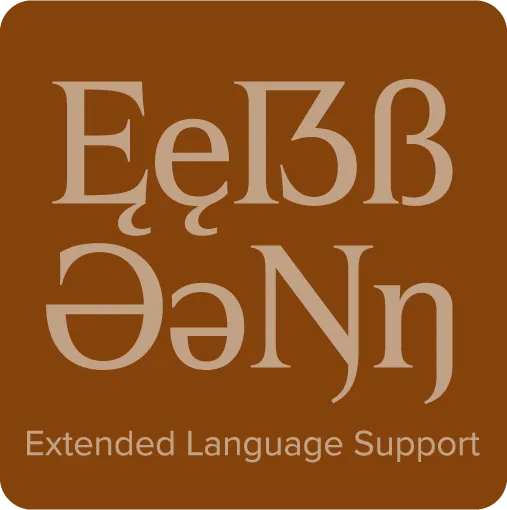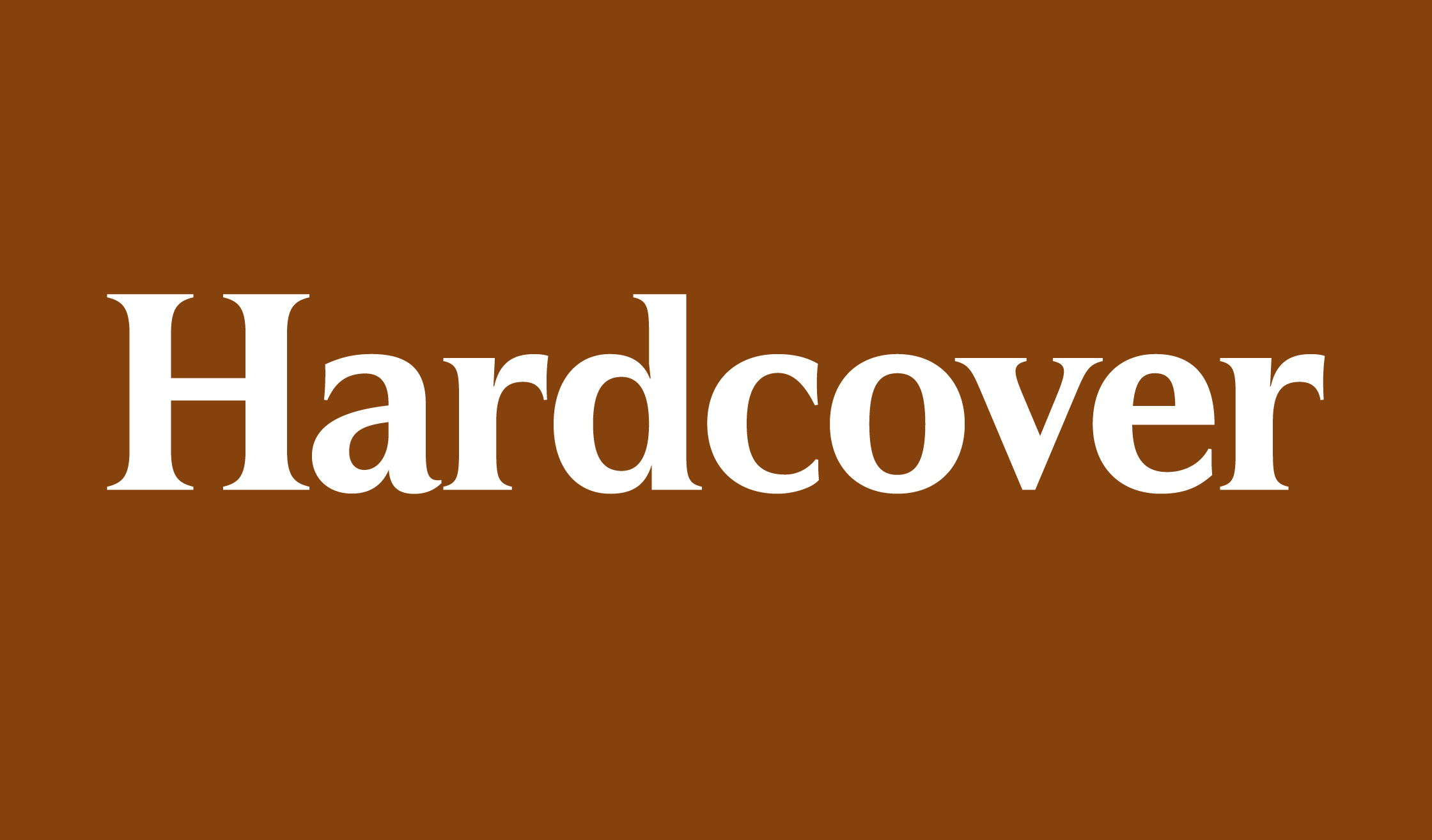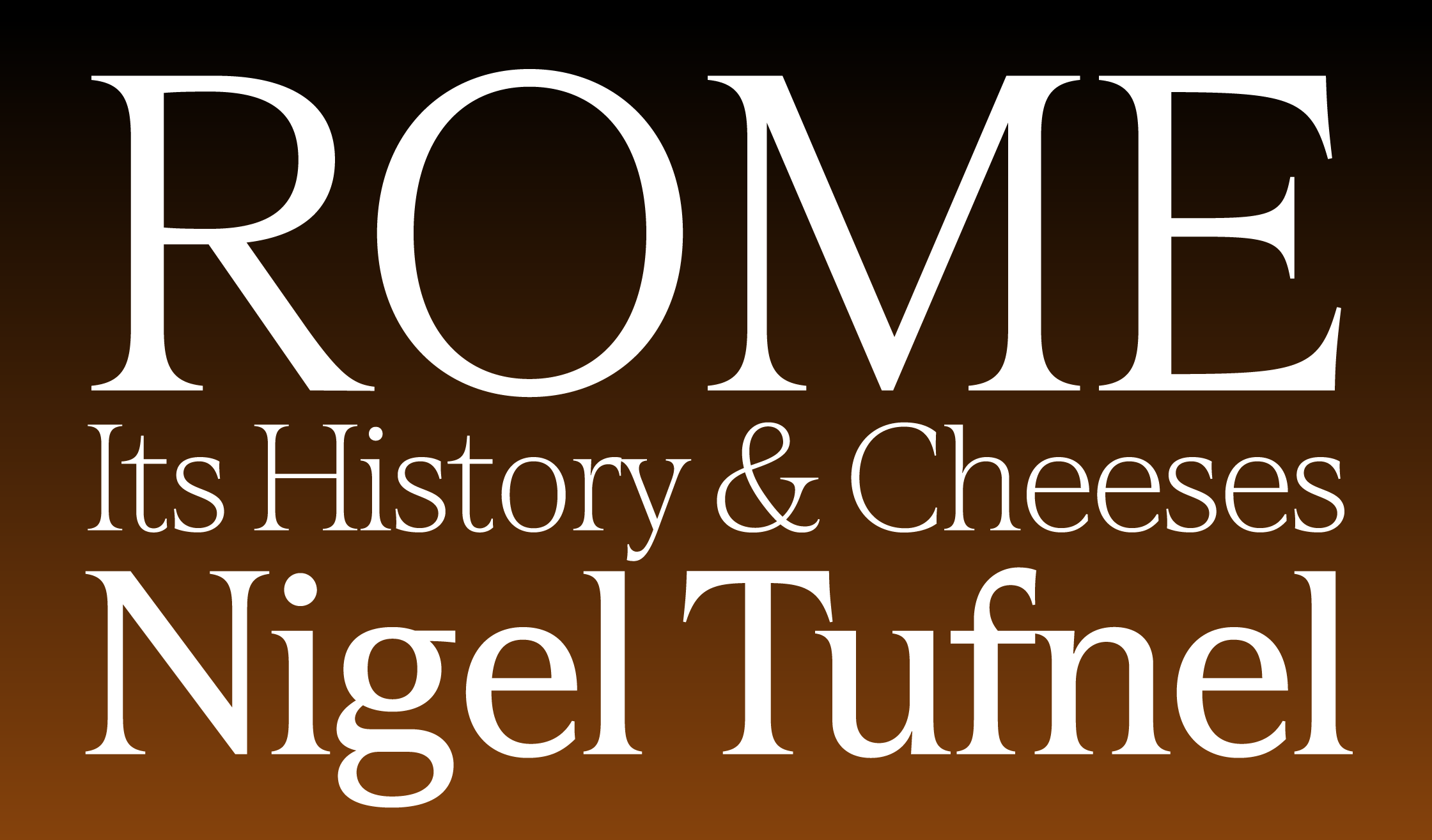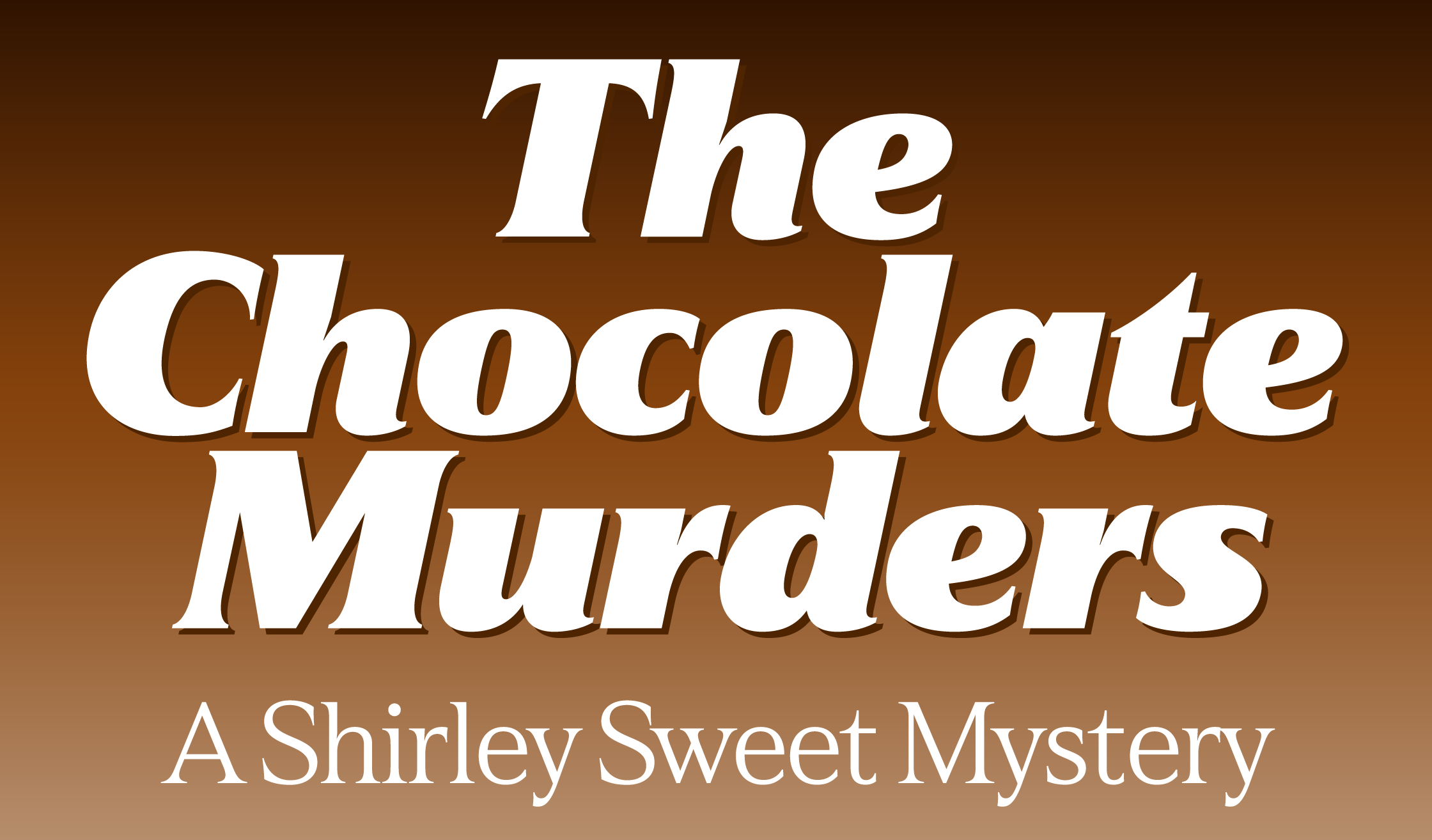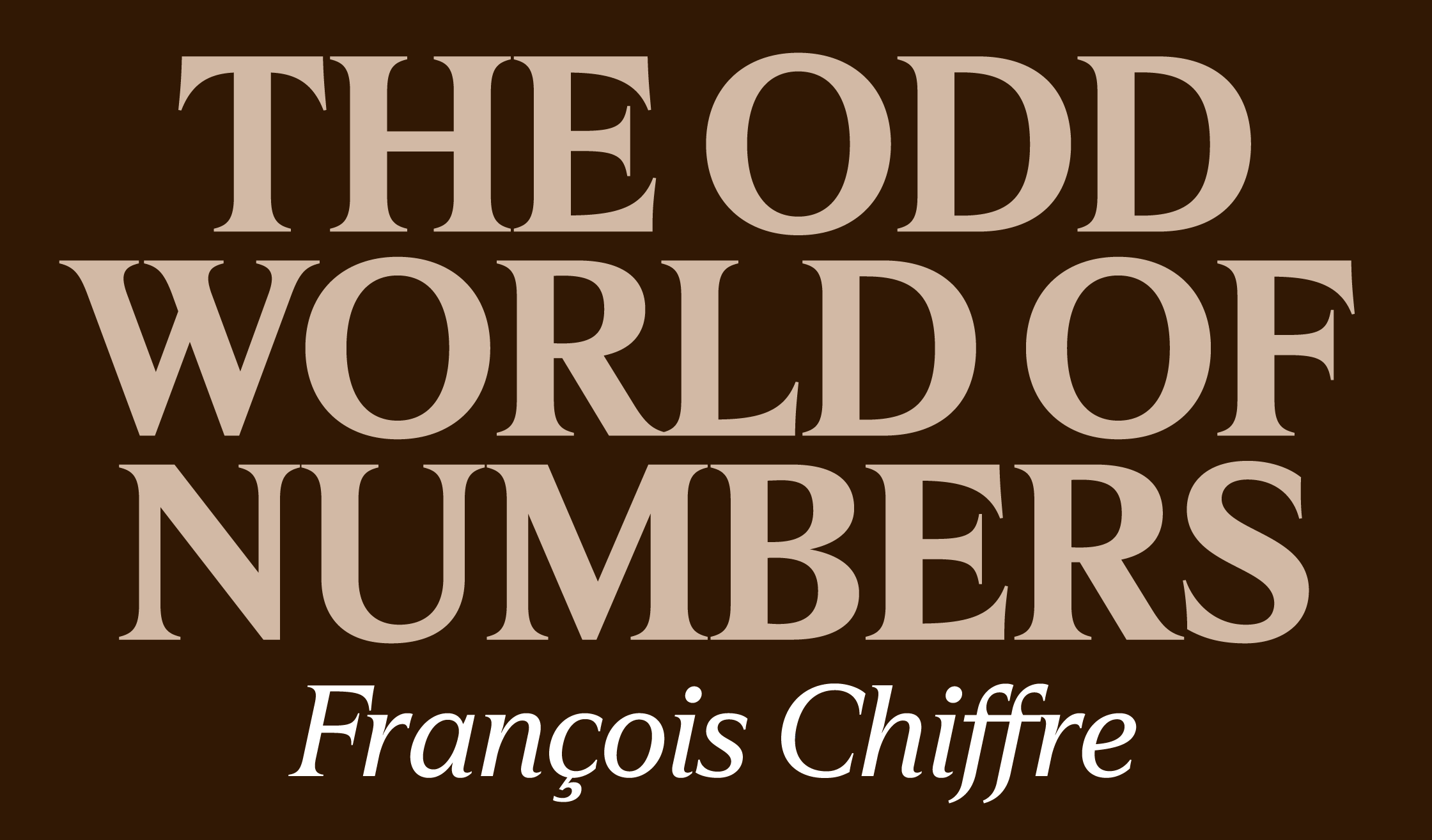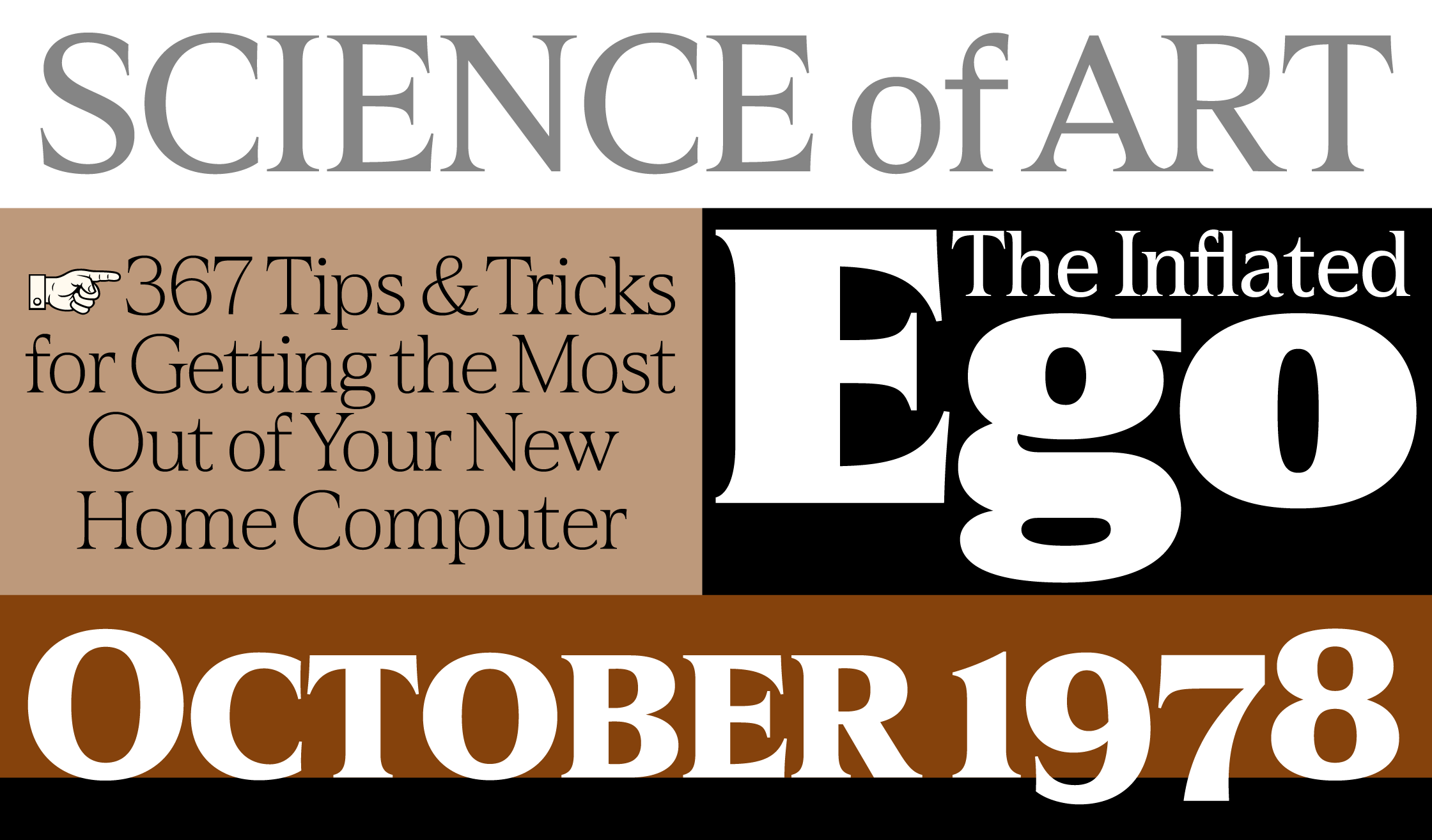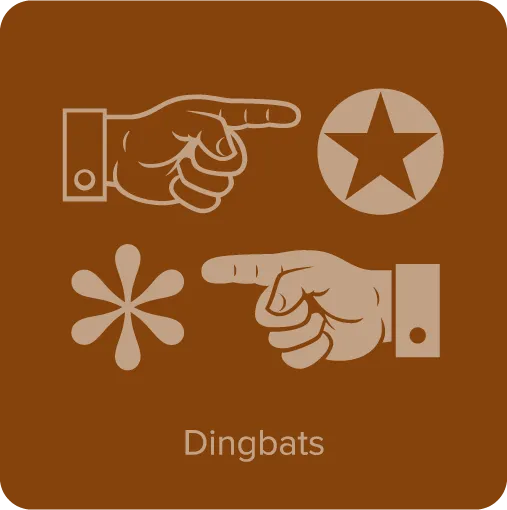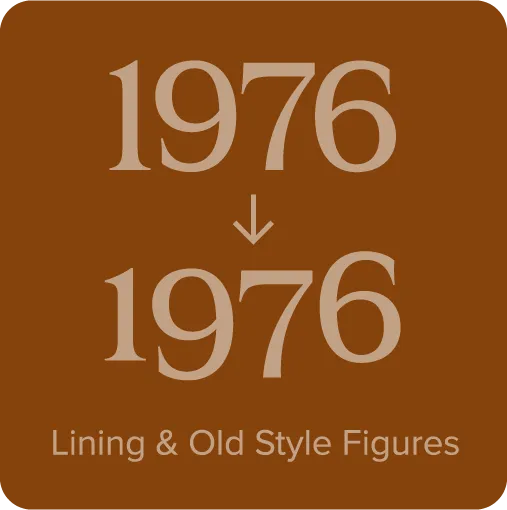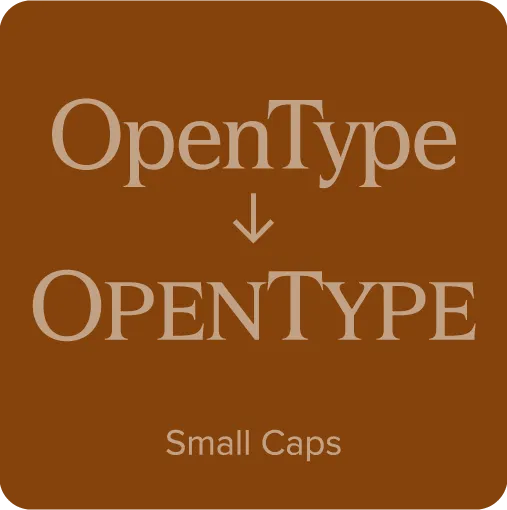
Hardcover (2025) is an elegant serif typeface intended for display use. It was one of my earliest typeface ideas, dating back to a sketch I did while working at one of my first design jobs in 1978, inspired by the slick lettering I’d seen on mass-market book covers. The capitals follow a classic roman model, reminiscent of Times New Roman, but with more modern, simplified forms. The lowercase and figures are constructed similar to the capitals, avoiding features typically associated with lowercase such as ball terminals and angled serifs. Although it may be used in short blocks of text, Hardcover is designed to be used large. It features matching italics and small caps for all weights and a set of dingbats.
Hardcover Features
- Dingbats & symbols.
- Filled Manicules.
- Small caps for all styles.
- Arbitrary fractions.
- Extended language support for most Latin-based Western and Central European languages.